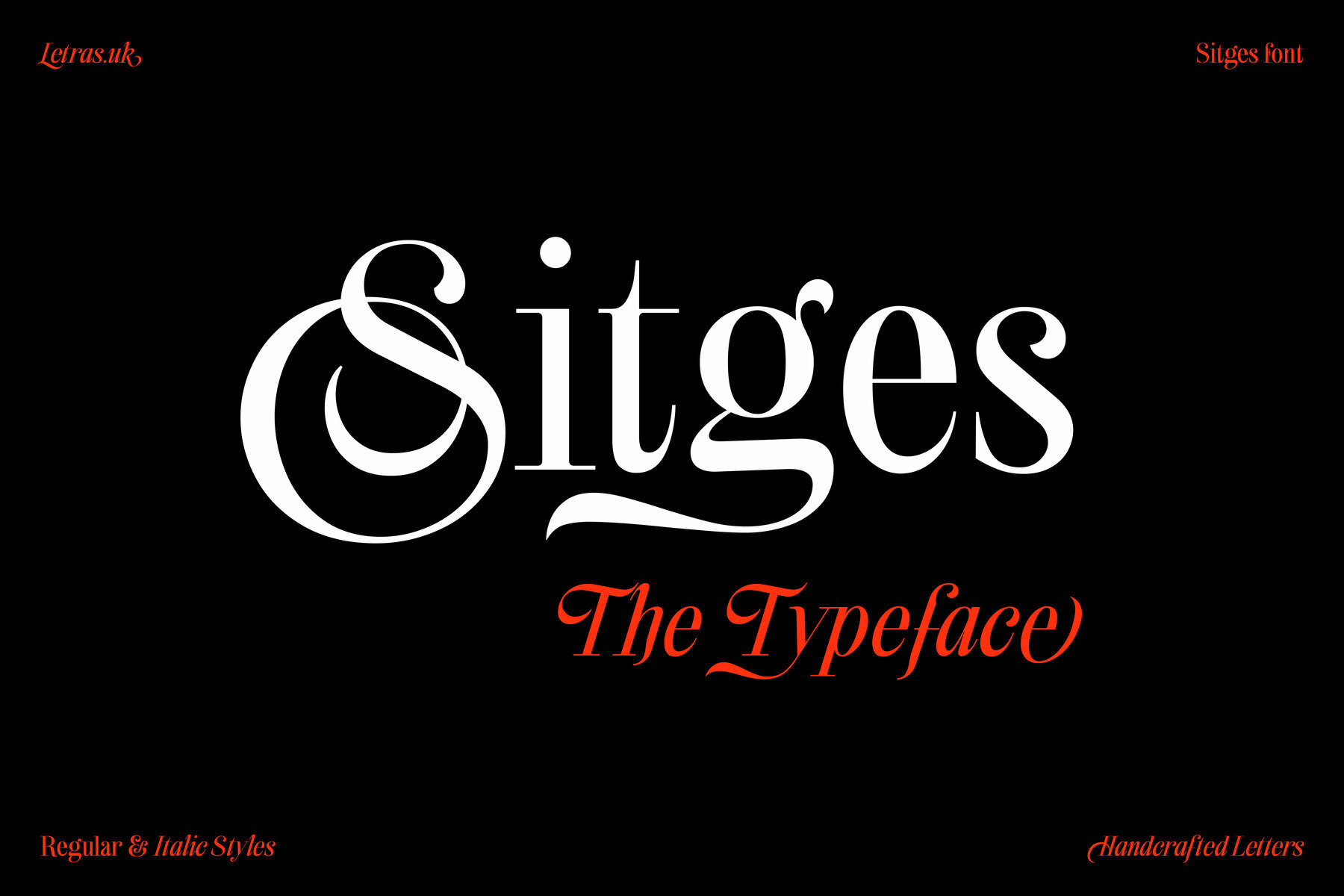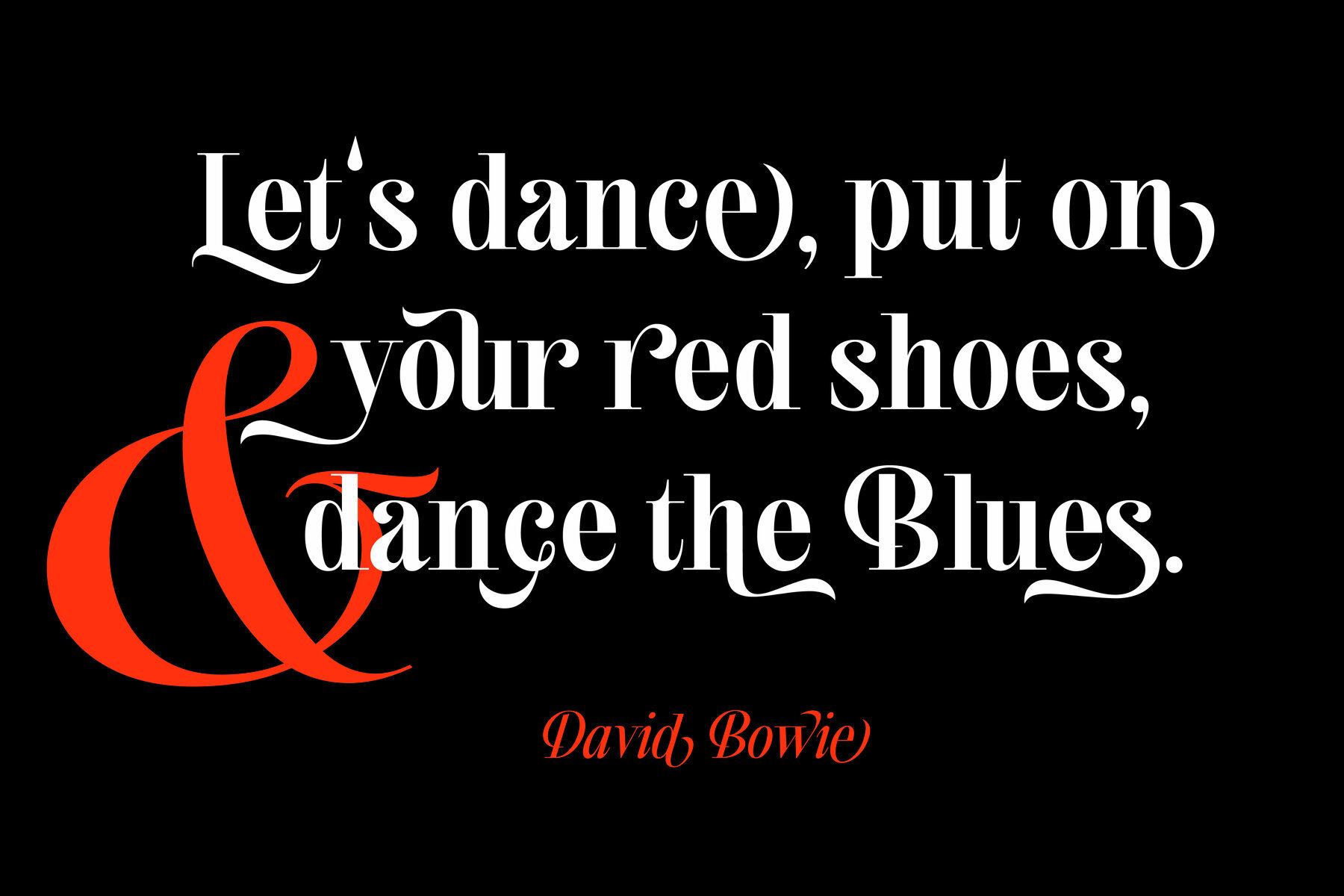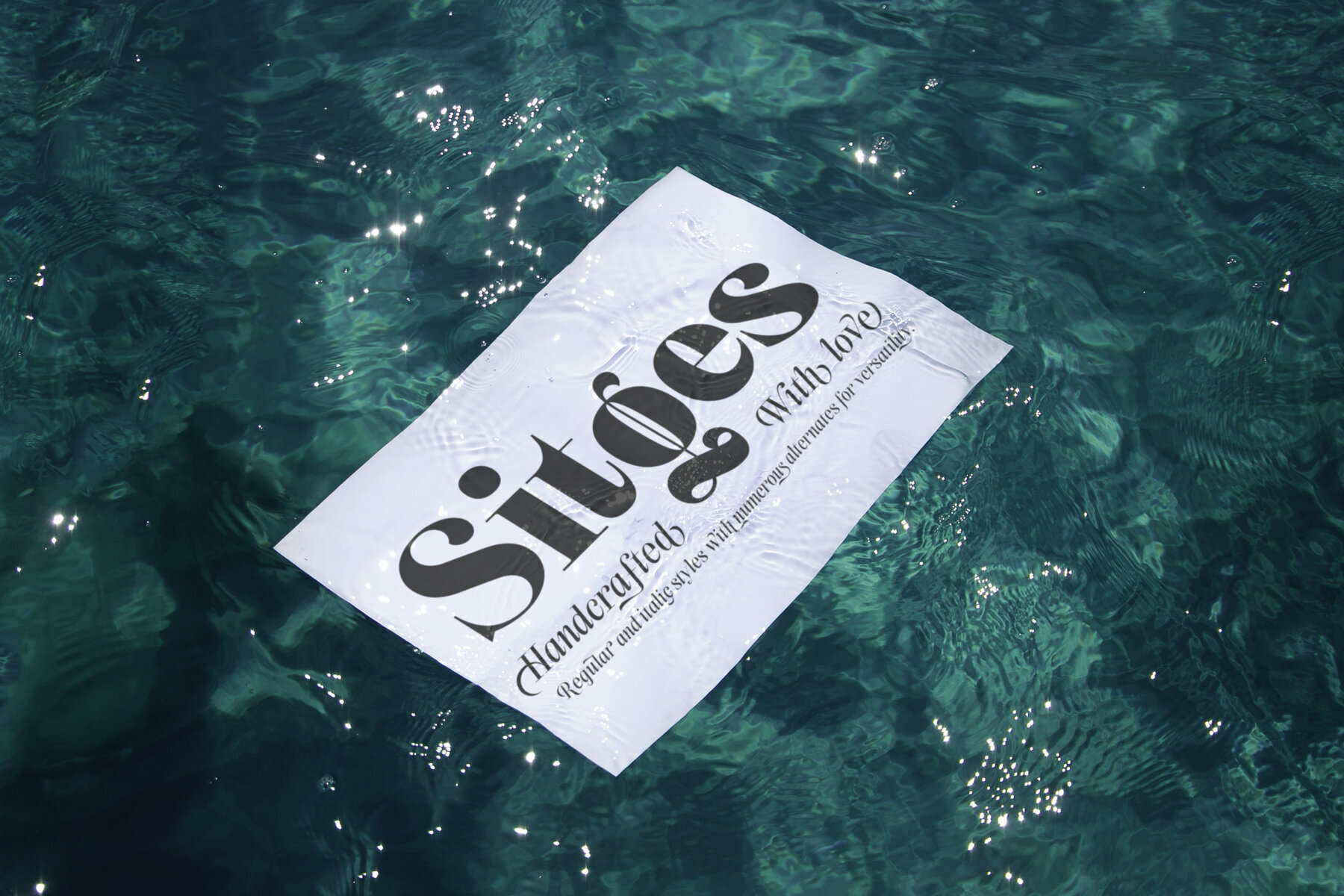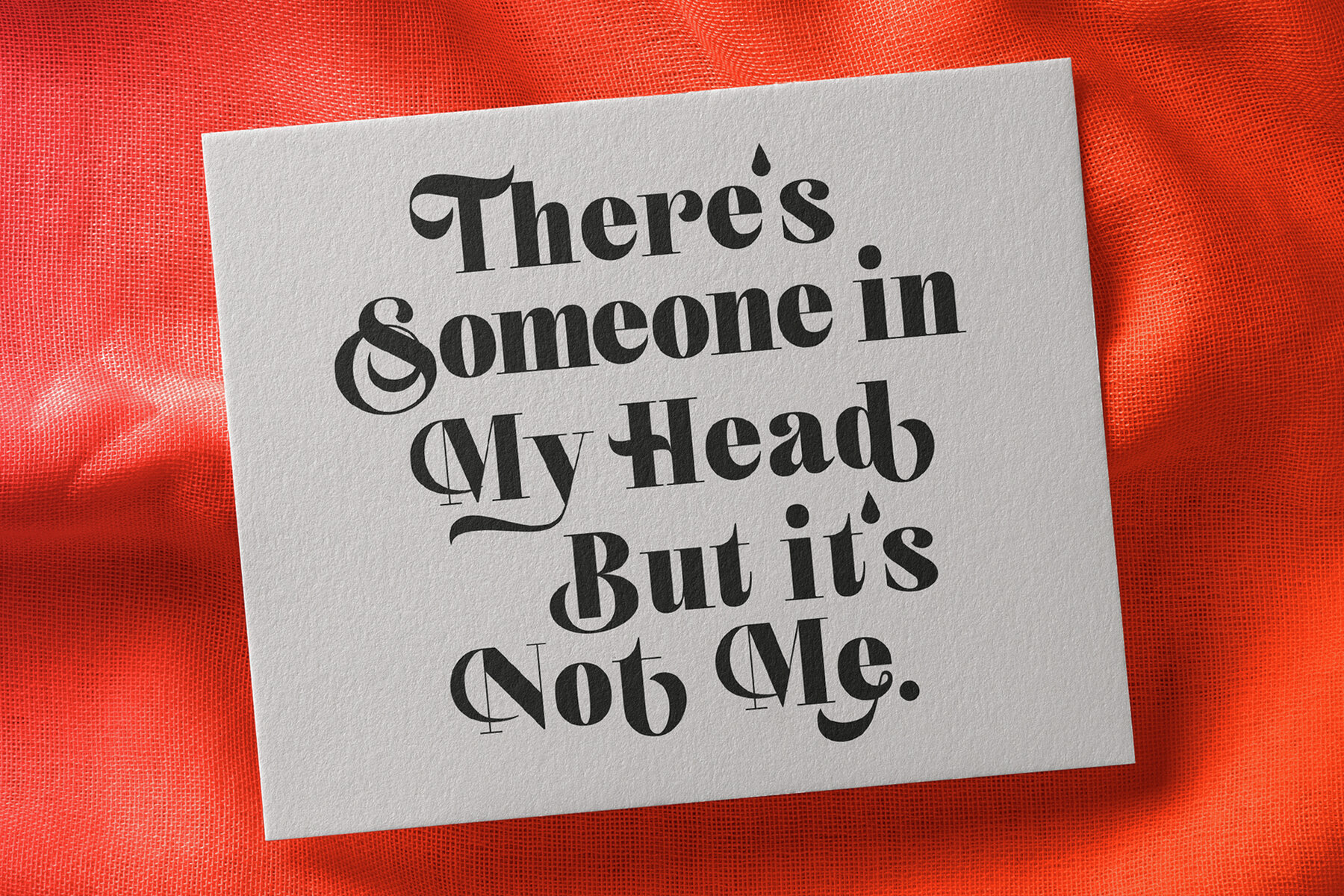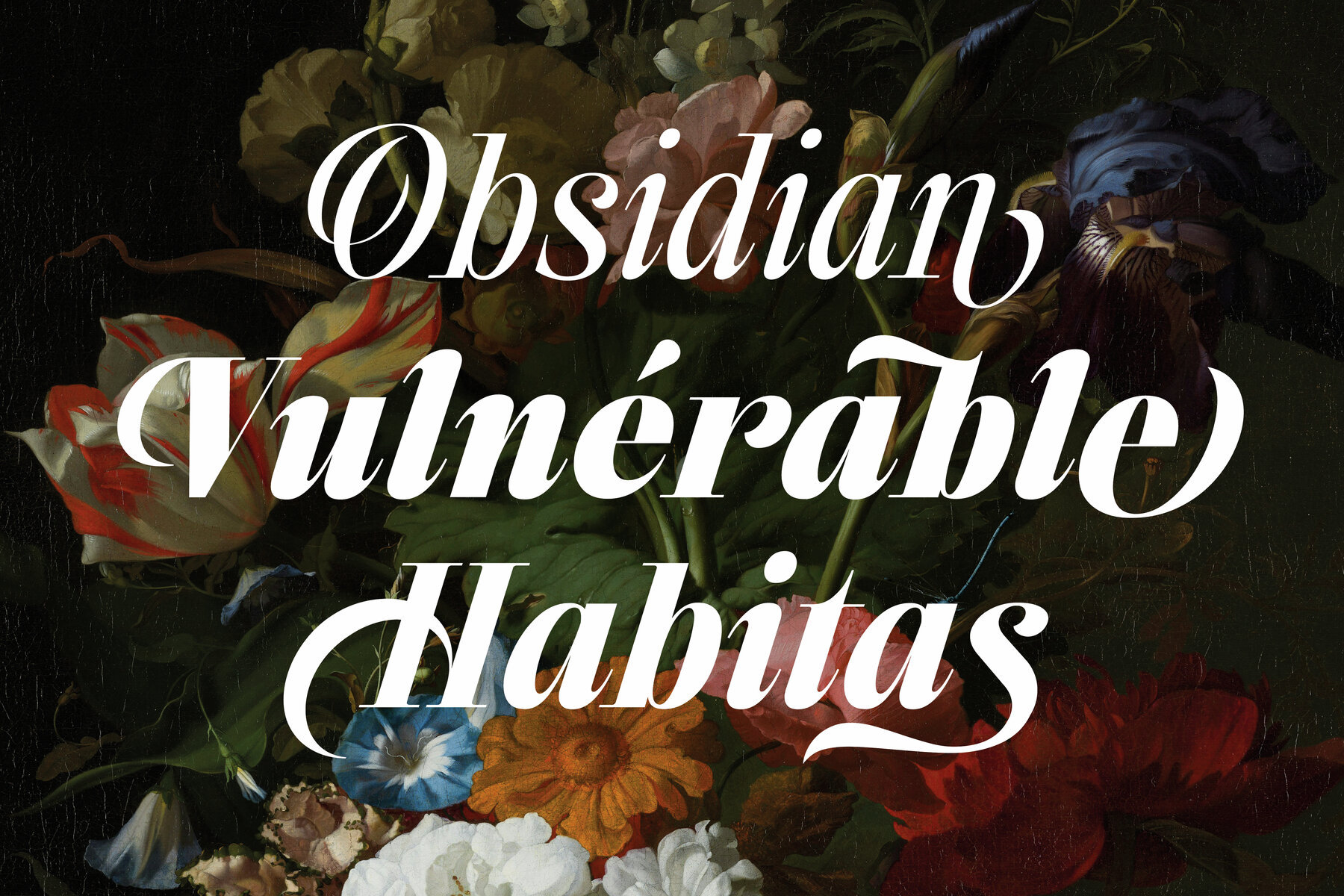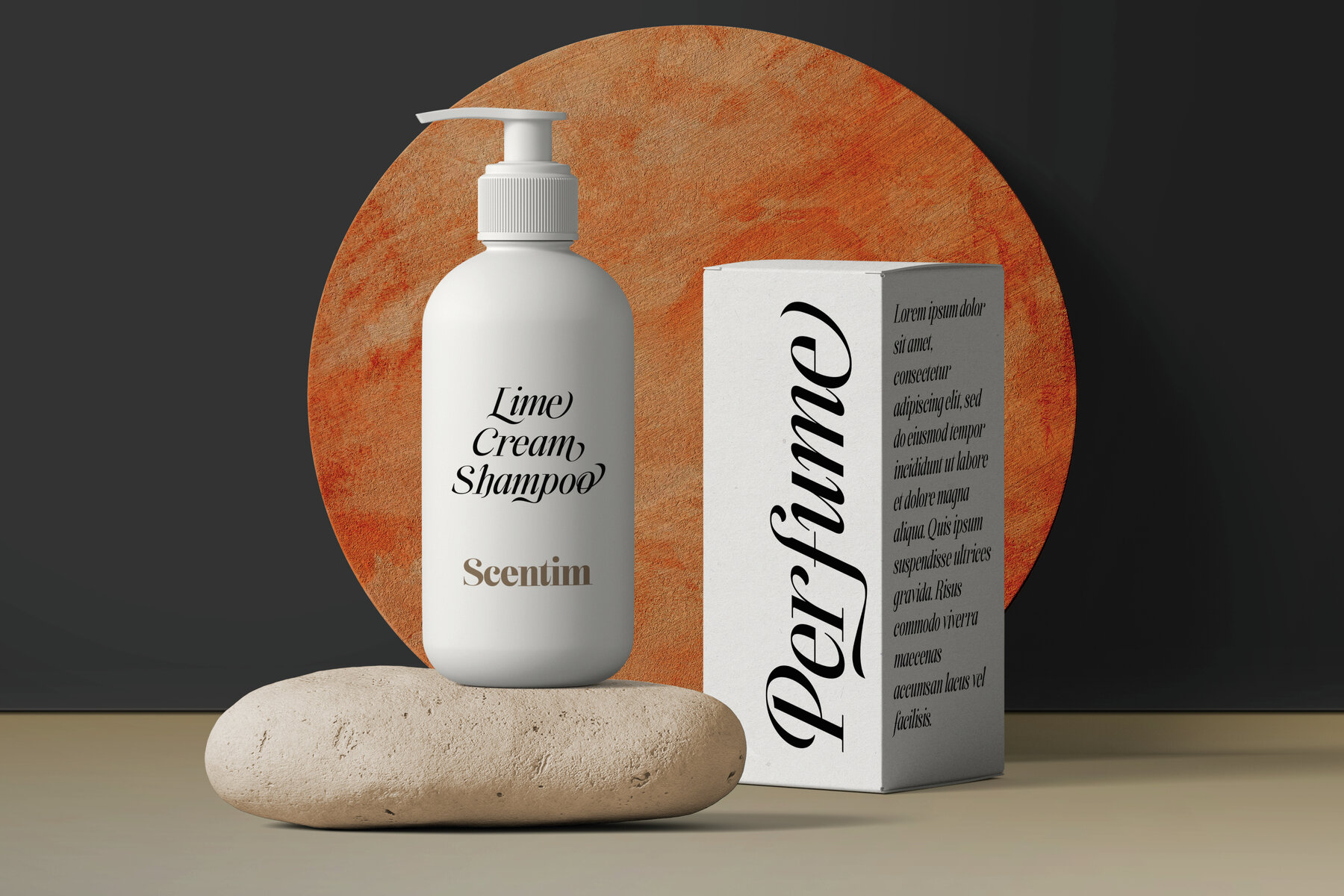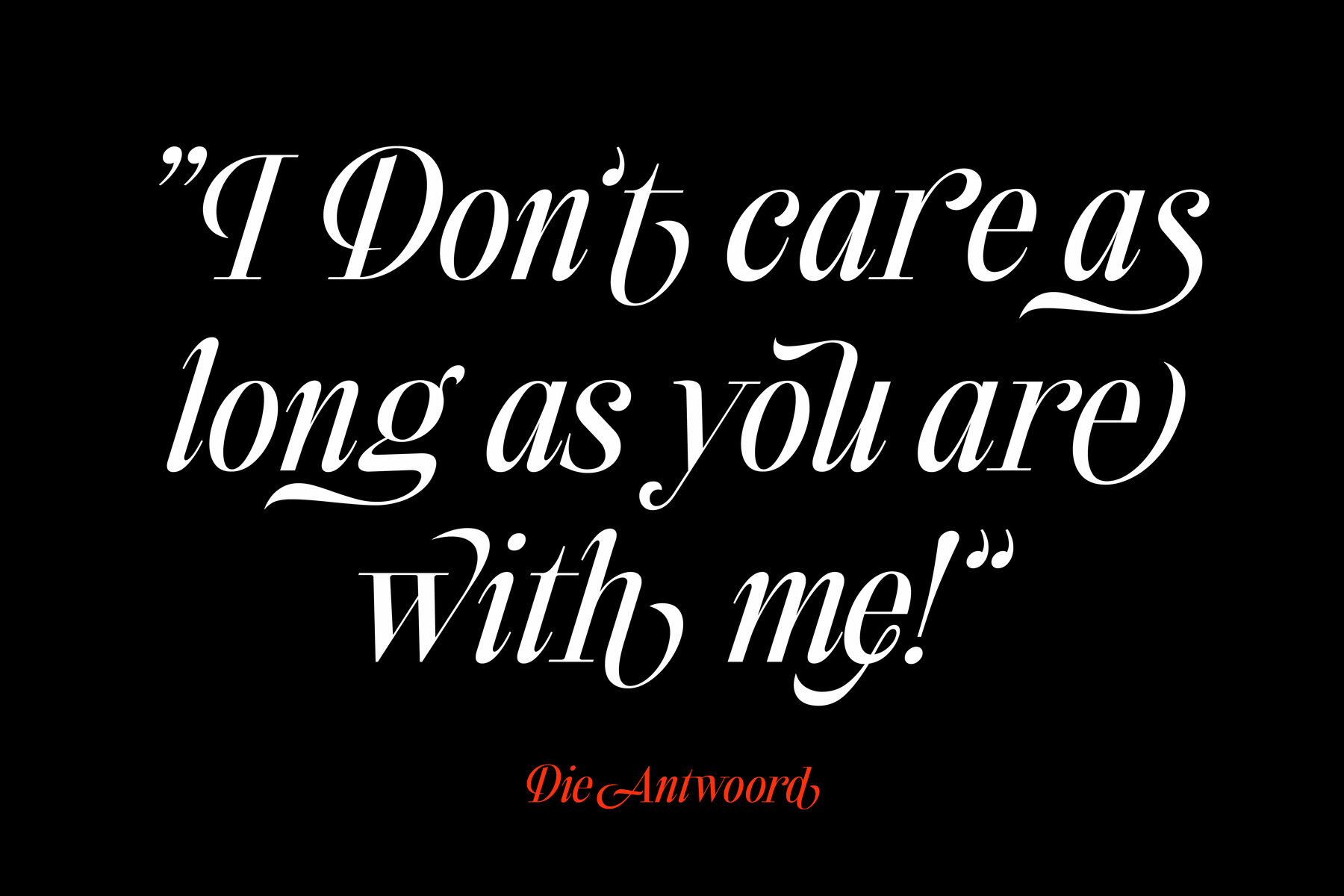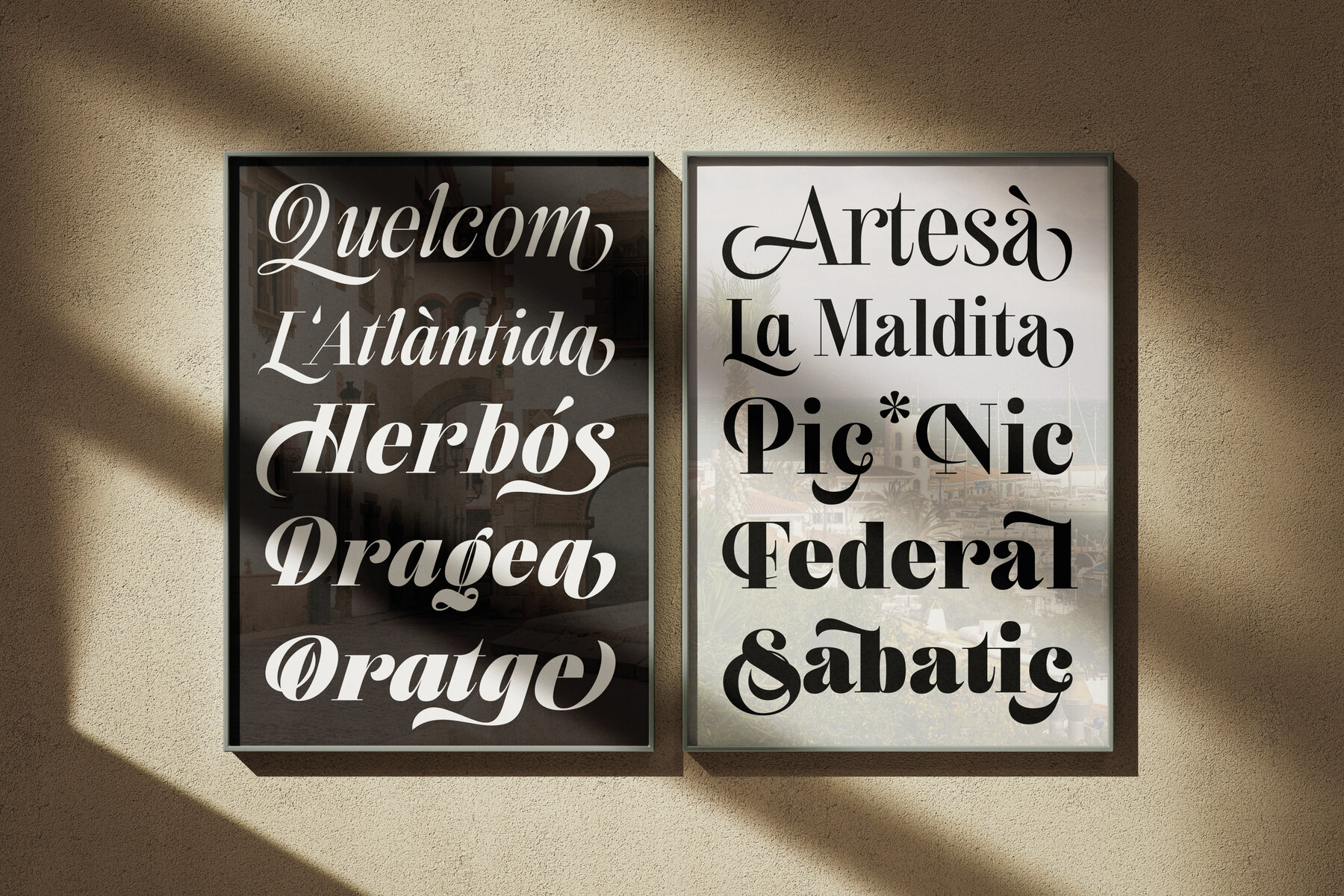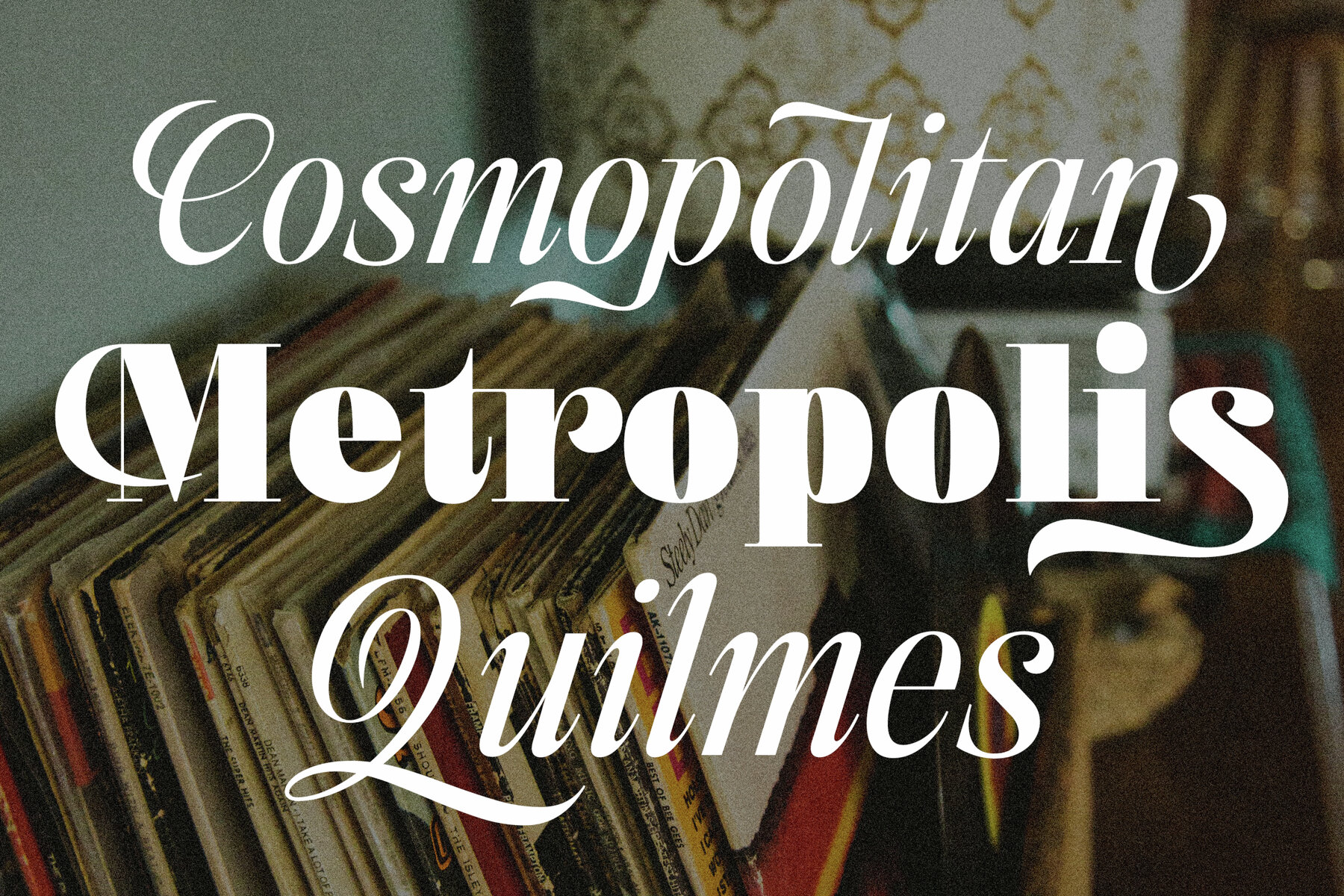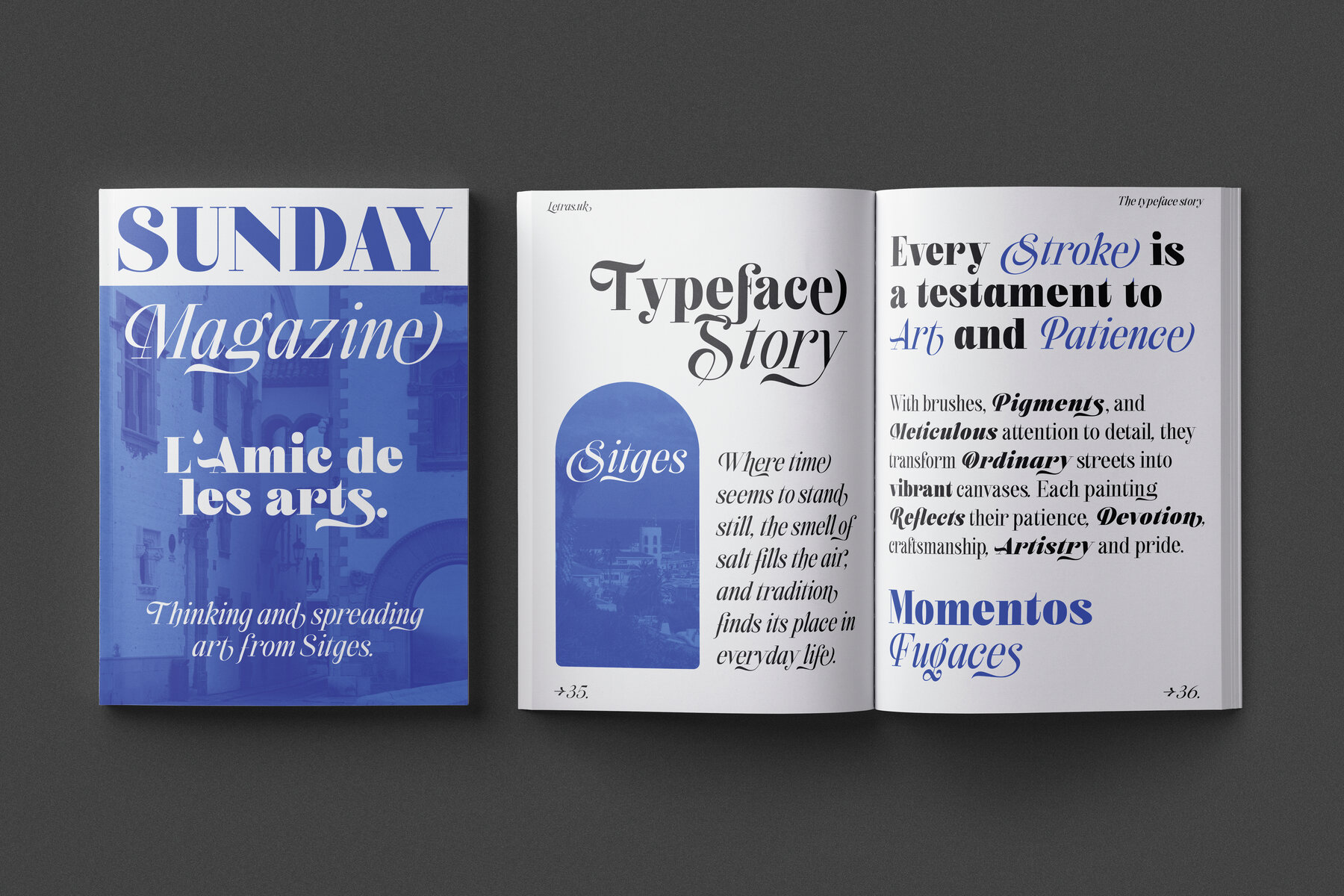
Sitges Font
Sitges typeface draws inspiration from the iconic street signs of Sitges, bringing the timeless qualities of traditional hand-painted lettering to modern design. It features elegant details at the beginnings and endings of each letter, capturing the artistry and warmth of master artisans. This typeface reflects the care and craftsmanship inherent in classic signage, making it a perfect choice for those seeking authenticity in their designs.
Created with versatility at its core, Sitges offers multiple variations for each letter in both standard and italic styles. This flexibility allows designers to infuse their work with unique character and a hint of Mediterranean charm. Whether you're working on a project that demands tradition or one that calls for subtle elegance, Sitges provides a robust typographic solution. Ideal for adding depth and personality to any design, this typeface is both adaptable and richly expressive.